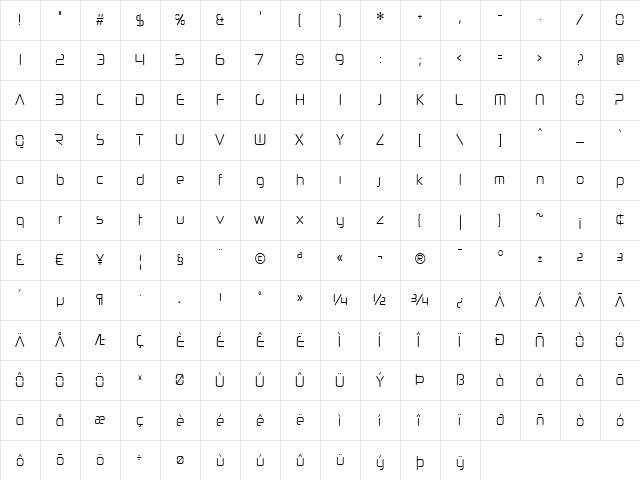
Neuropol Nova Cnd Lite Regular
Design Context for Neuropol Nova Cnd Lite Typeface
Neuropol Nova Cnd Lite is a composed and adaptable typeface that performs quietly and consistently across a wide range of design contexts.
Pro Tip: Use Neuropol Nova Cnd Lite in both headline and body roles to test its range before committing to a single application.